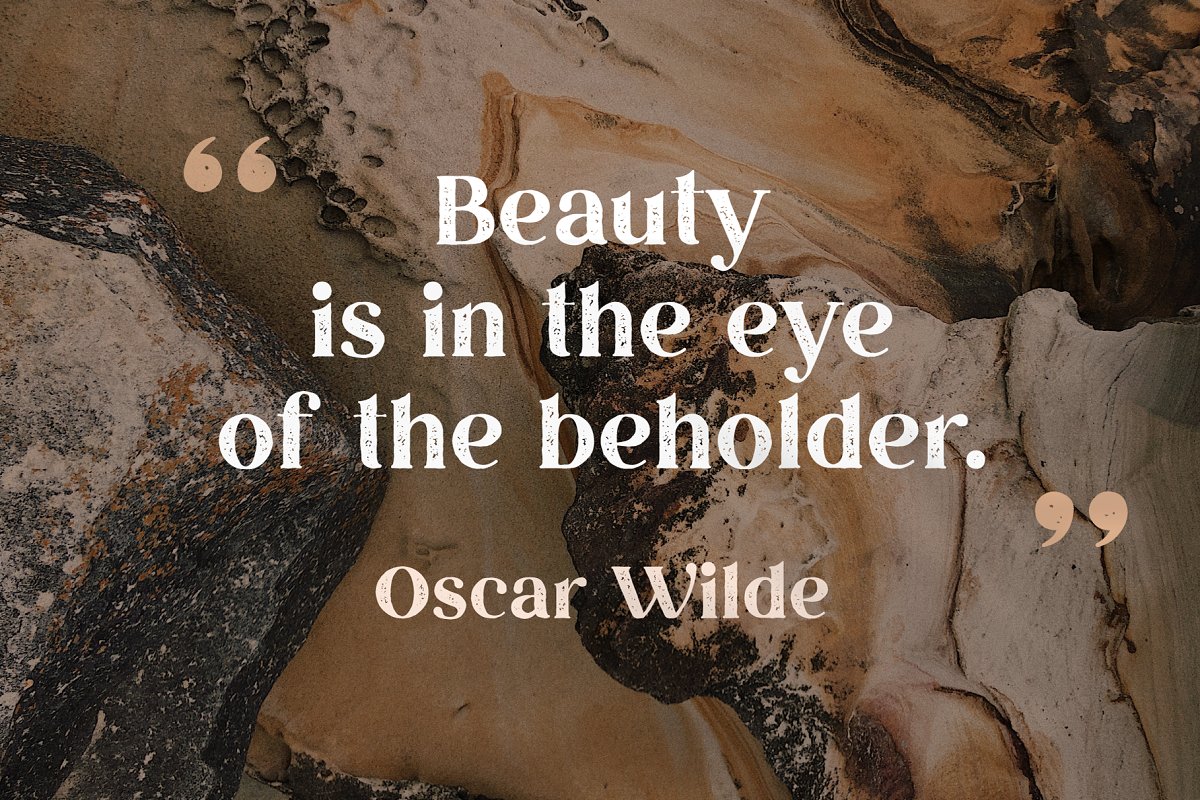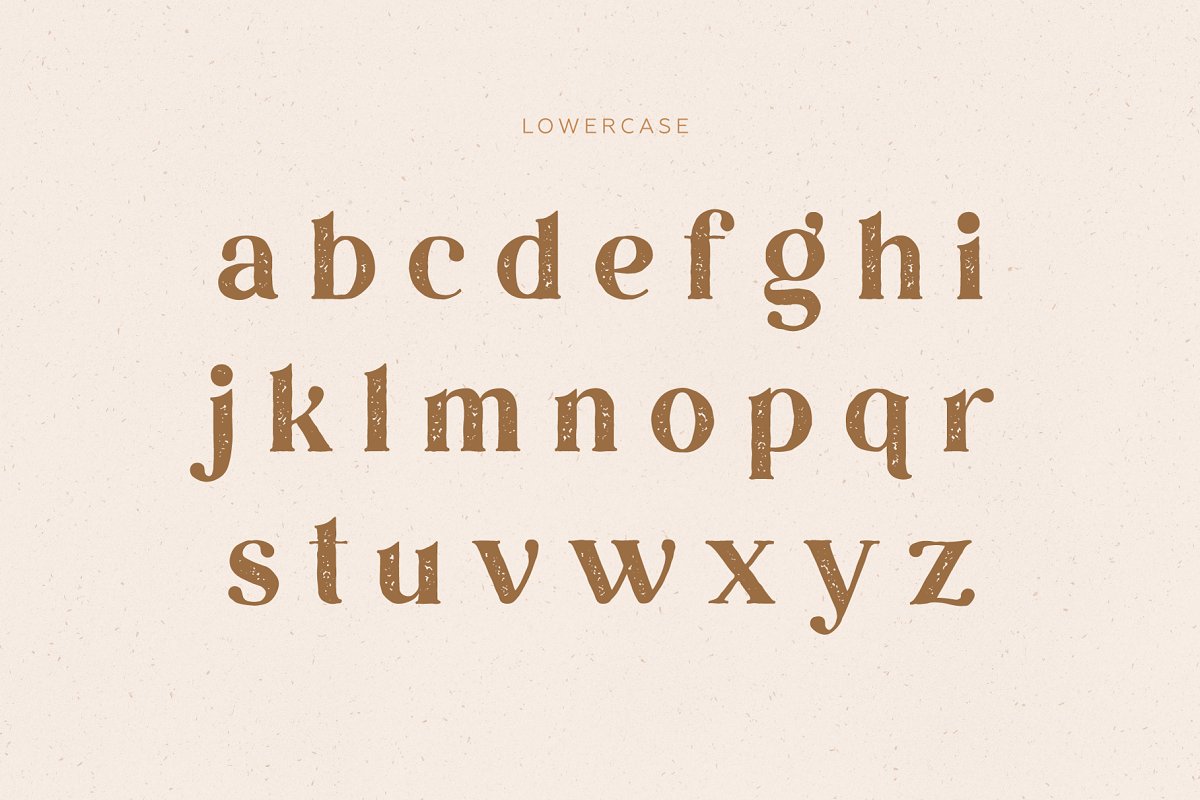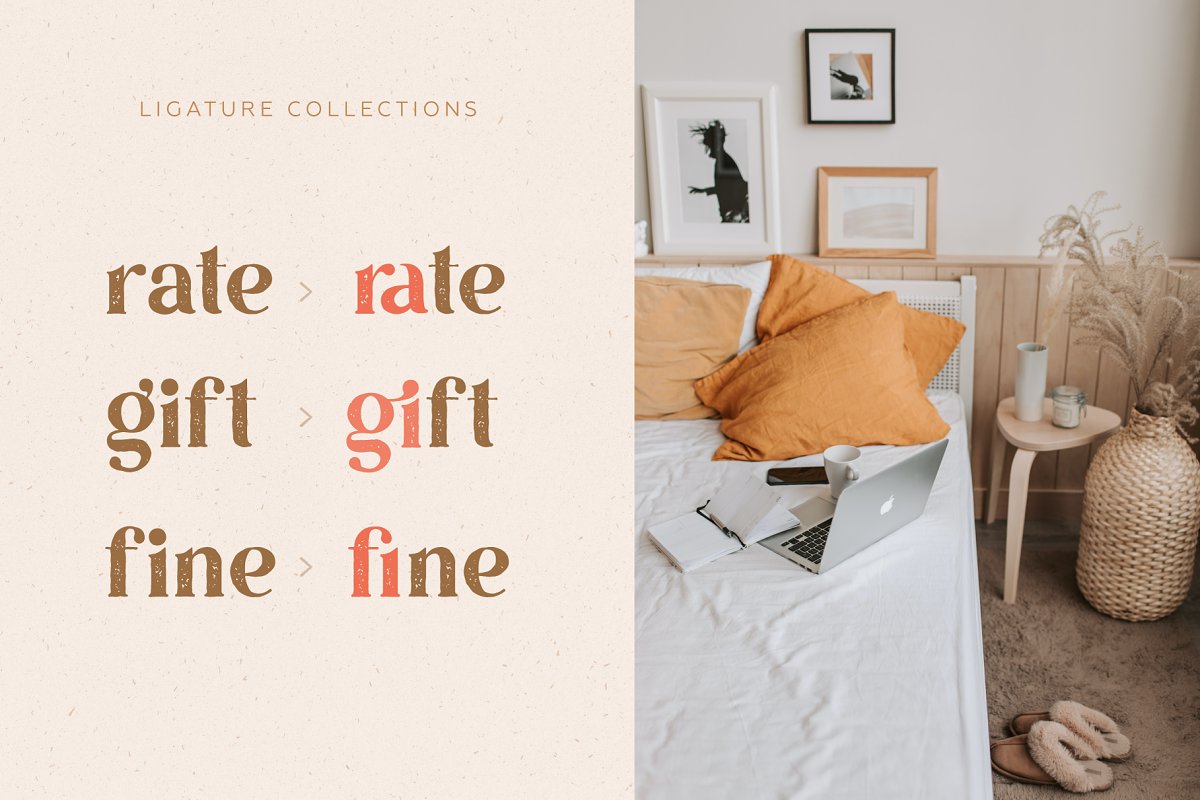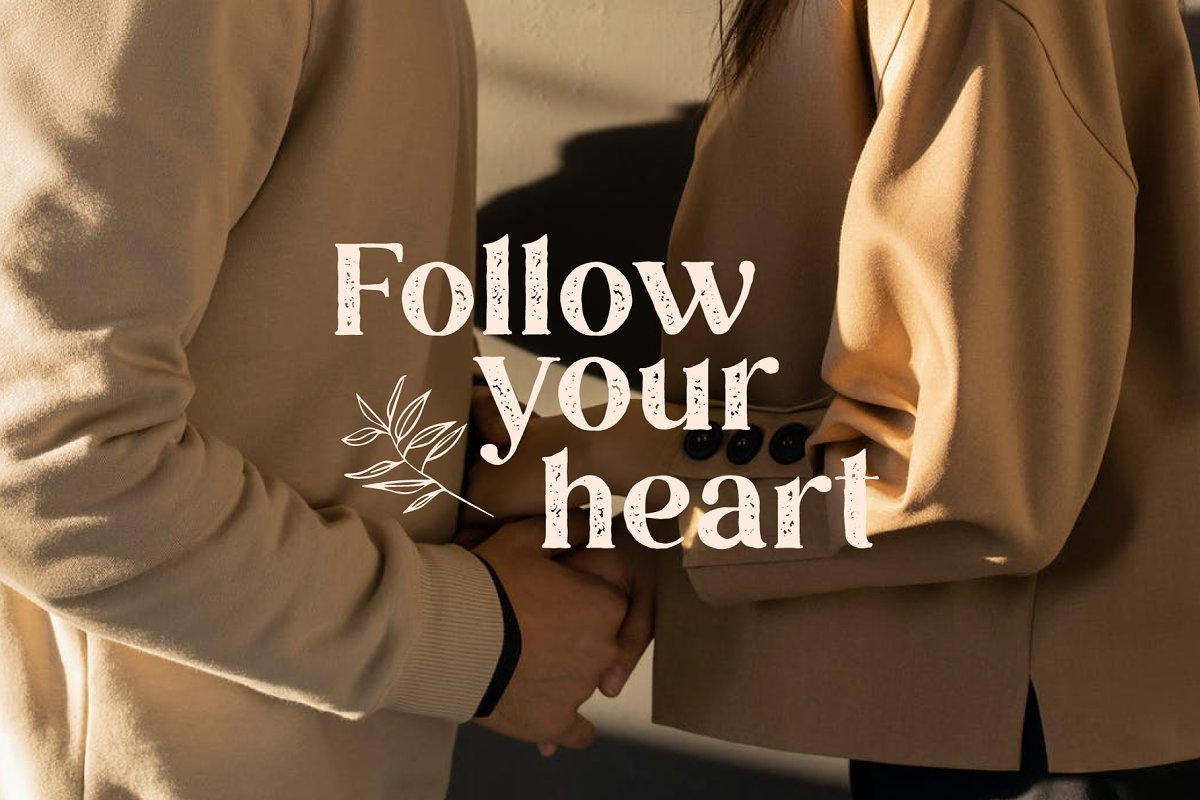
About the Touch Serif Font
Hello! I’m very happy to present my font Touch!Touch will perfect for many project: fashion, magazines, logo, branding, photography, invitations, wedding invitation, quotes, blog header, poster, advertisements, postcard, book, websites, etc, Files Includes: Touch, otfUpper + lowercase lettersNumbers + punctuationIf you have any questions, please contact me directly: ang